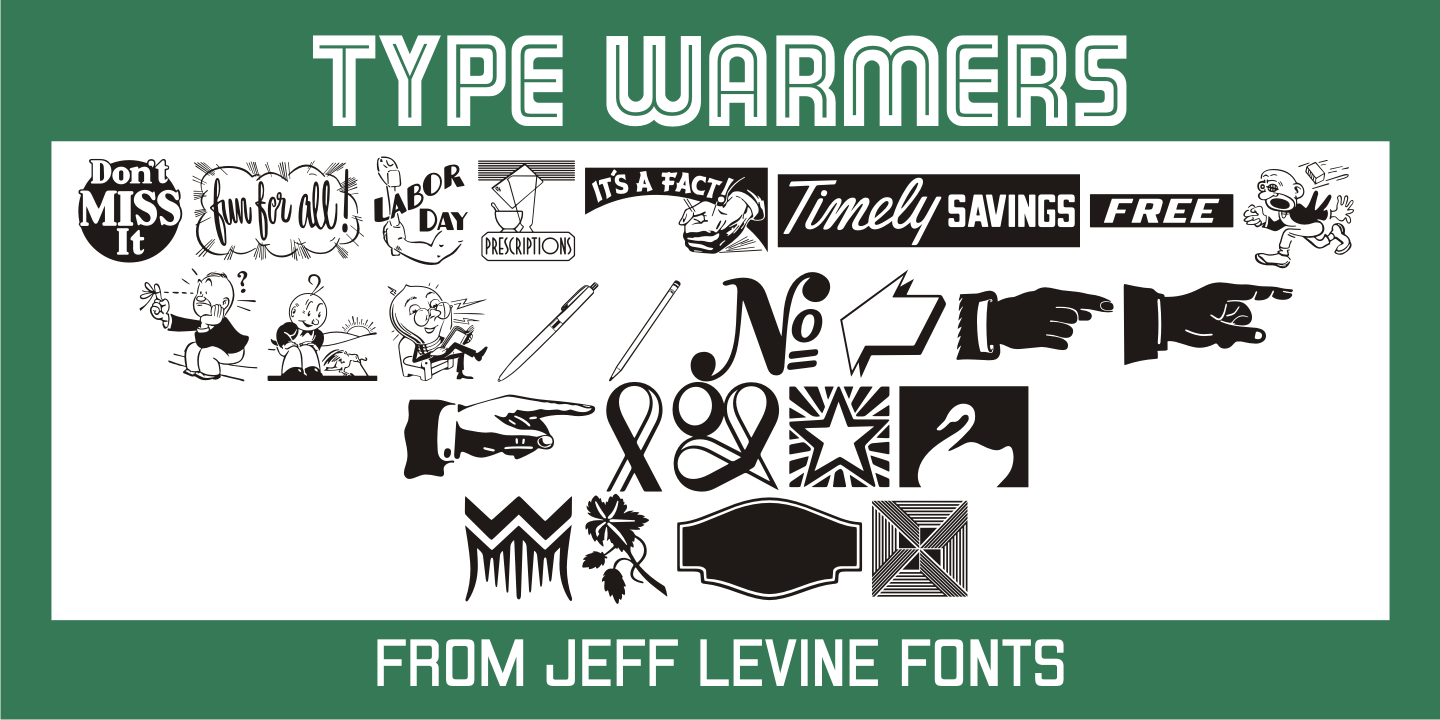
Type Warmers
The name Type Warmers JNL traces its lineage to small catalog booklets issued by Indianapolis' Cobb Shinn for his line of letterpress cuts; of which a few can be found included within this typeface.
Presumably type could 'warm up to' these stock illustrations and work hand-in-hand to deliver the message, hence the 'Type Warmers' sobriquet.
Originally known for illustrating many attractive and comical postcards of the early 1900s, Shinn moved into the field of purchasing stock art and redistributing them as electrotypes or 'cuts', the predecessor to today's digital clip art.